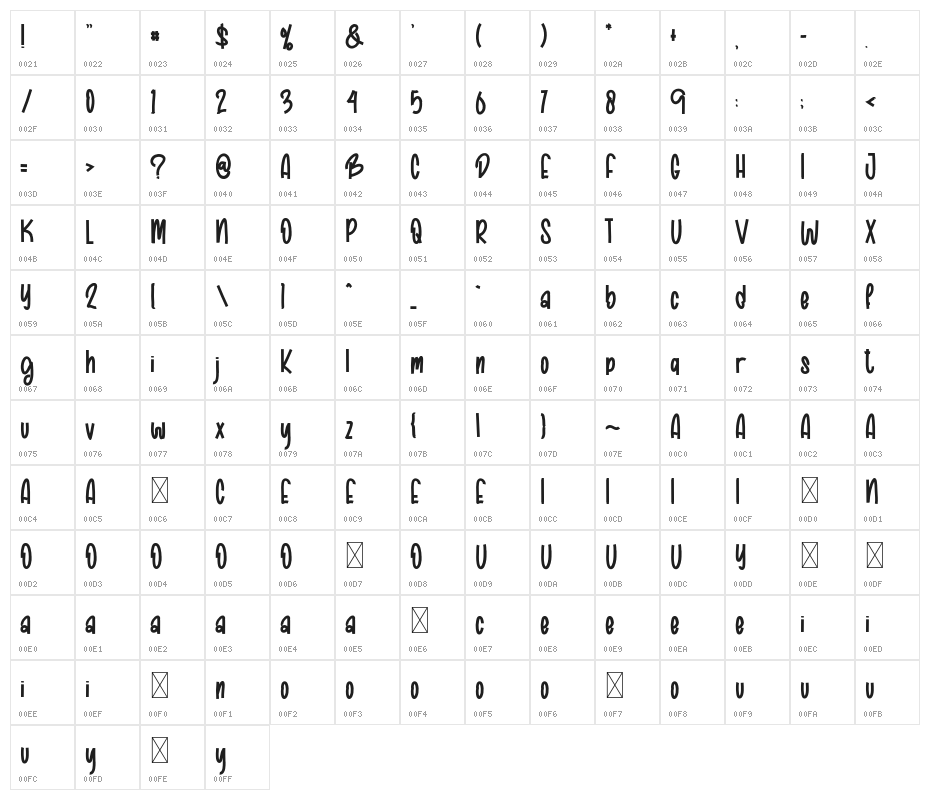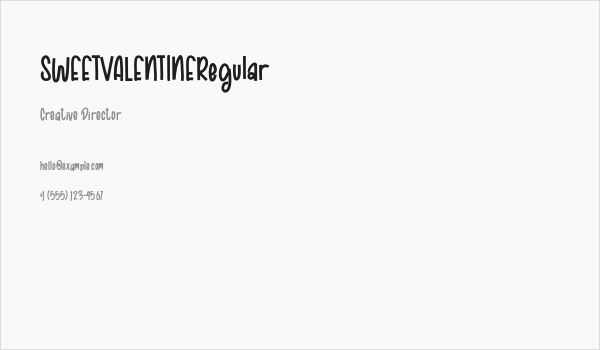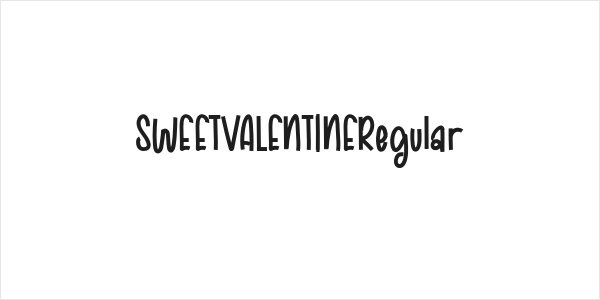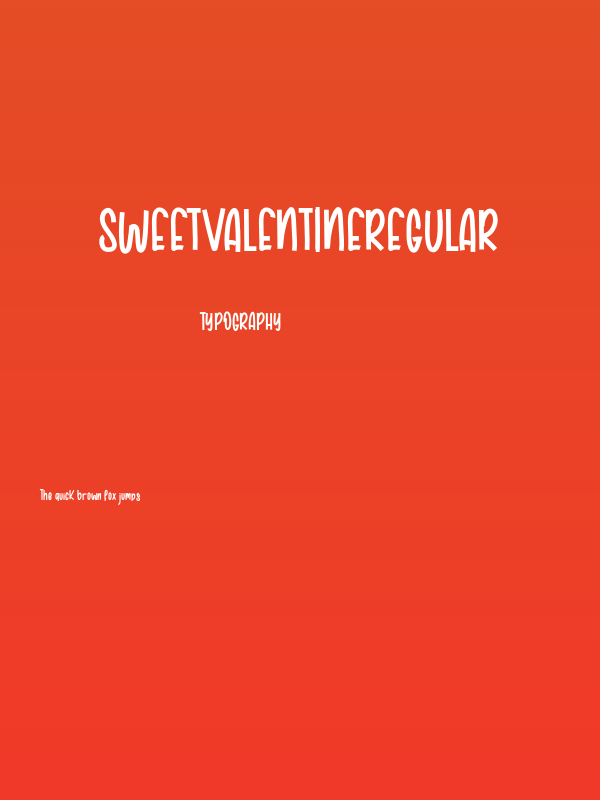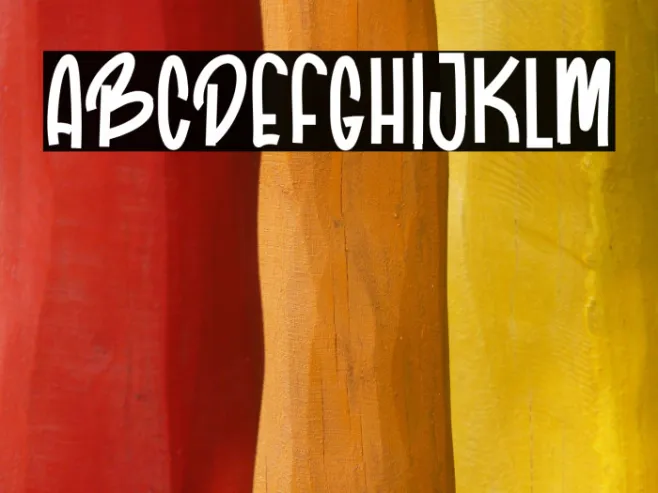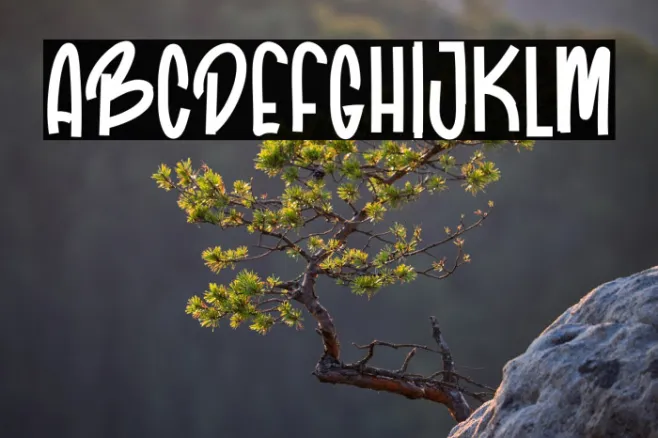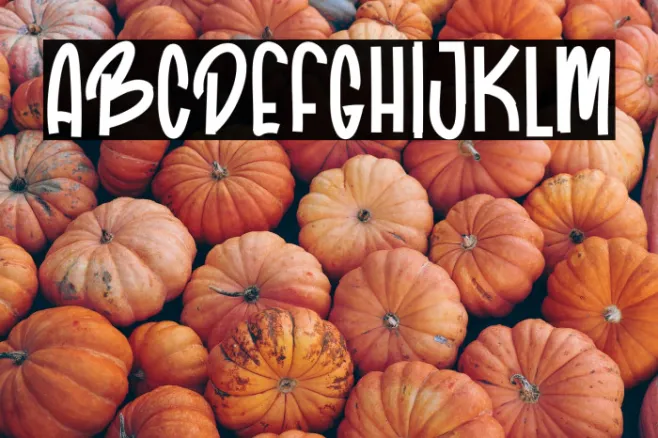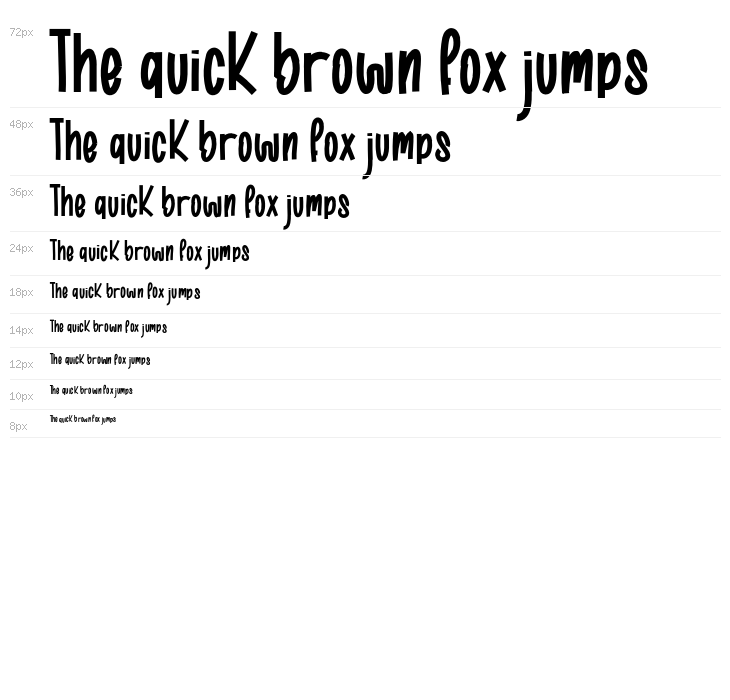
SWEETVALENTINERegular Font
SWEETVALENTINERegular Description
This playful and charming font features a handwritten style with a whimsical flair. The letters are bold and slightly irregular, giving it a casual and friendly appearance. The uppercase and lowercase characters maintain a consistent flow, with rounded edges and a slight slant that adds to its informal nature. The numerals and special characters are crafted to match the overall style, ensuring a cohesive look. This font is perfect for projects that require a touch of personality and warmth.
| Proposed Projects | Ideal for greeting cards, invitations, children's books, and playful branding. |